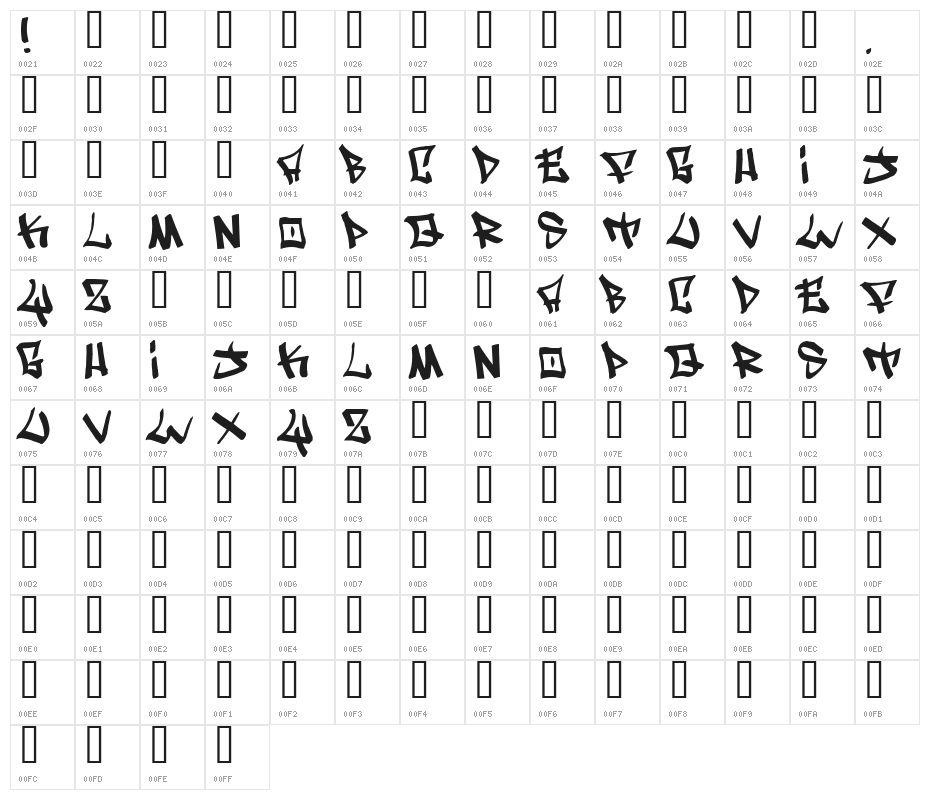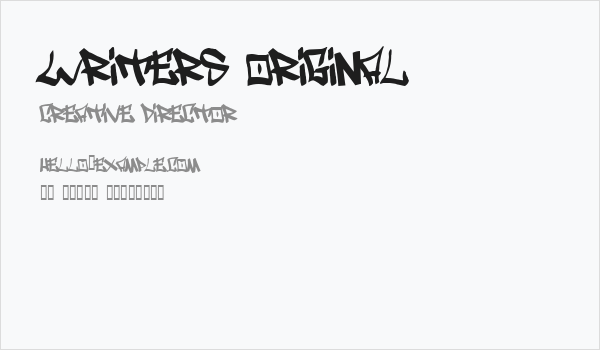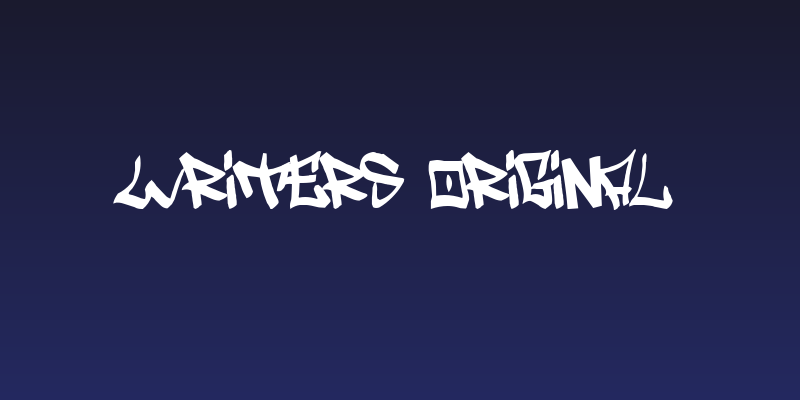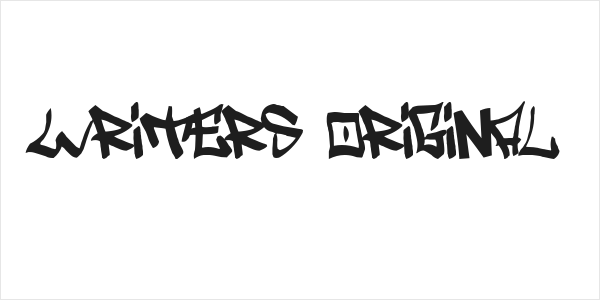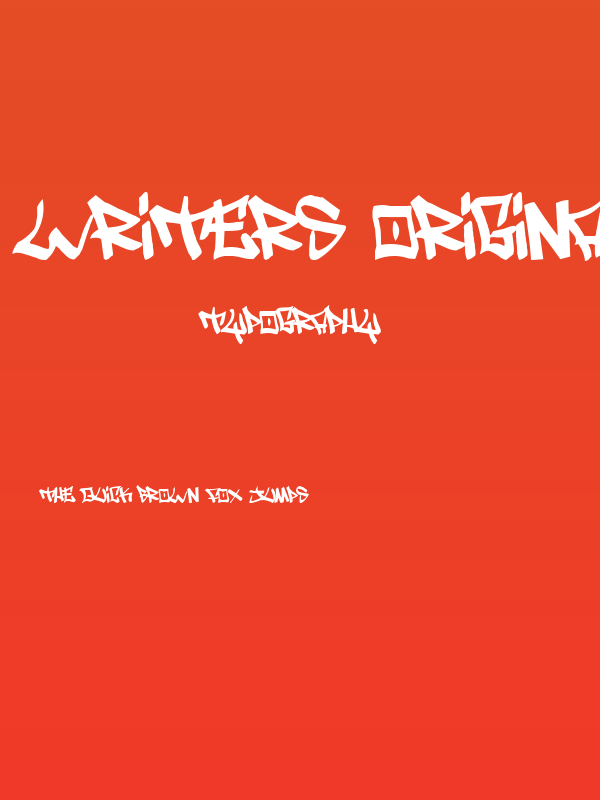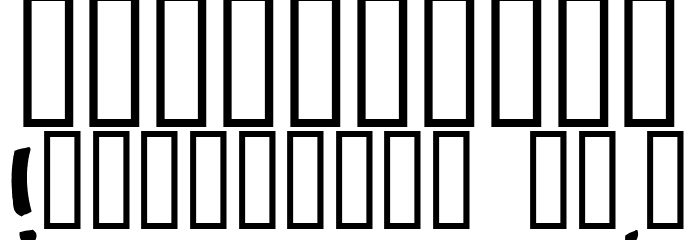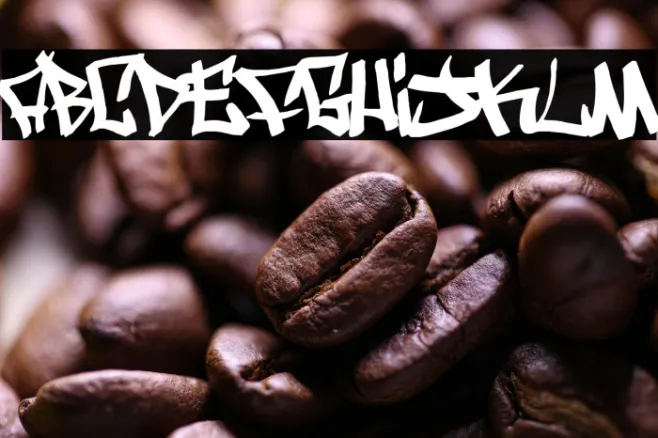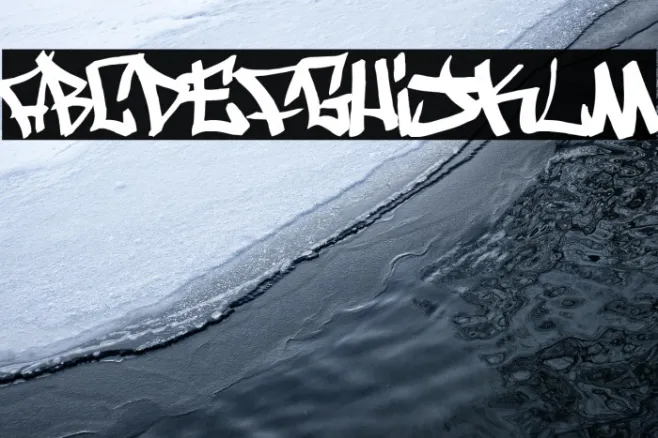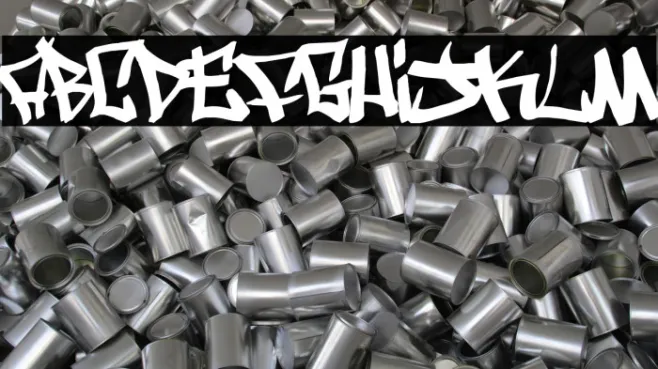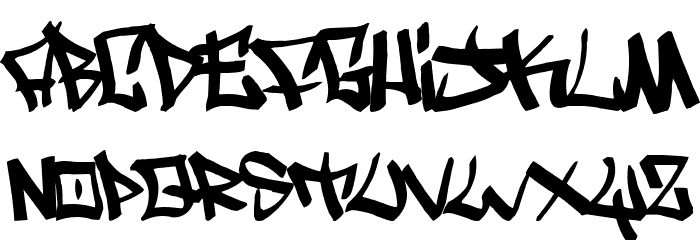
Writers original Font
Writers original Description
This font exhibits a bold, graffiti-inspired style with sharp, angular lines and a dynamic, energetic appearance. The uppercase letters are characterized by their jagged edges and irregular shapes, giving them a rebellious and urban feel. The lowercase letters maintain this edgy aesthetic, with a consistent stroke width that enhances the font's boldness. The numbers and special characters follow the same design principles, ensuring a cohesive look throughout. This font is highly decorative and makes a strong visual impact, ideal for projects that require a street art or urban theme.
| Overall Style | Urban, Graffiti, Bold |
| Proposed Projects | Ideal for street art designs, urban-themed posters, music album covers, and edgy branding projects. |